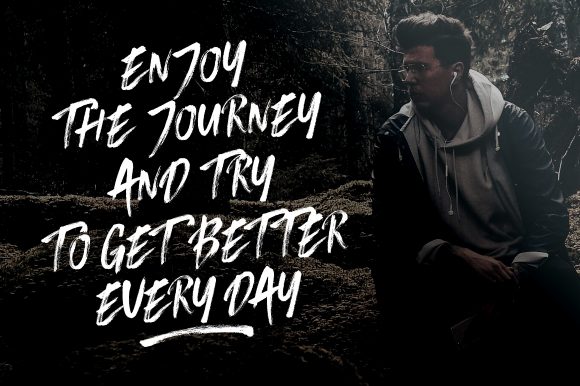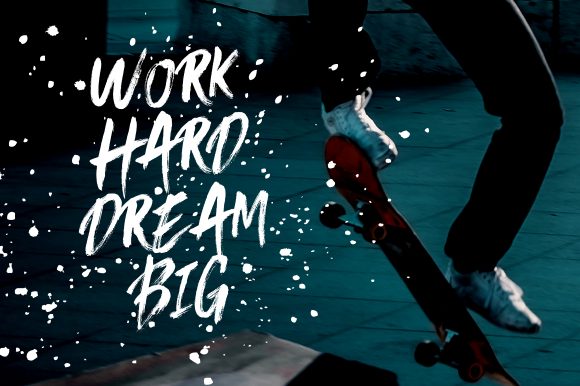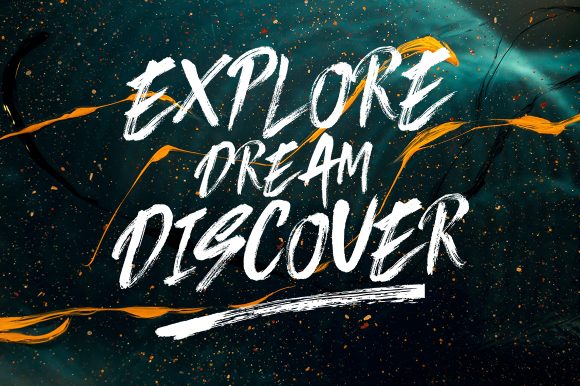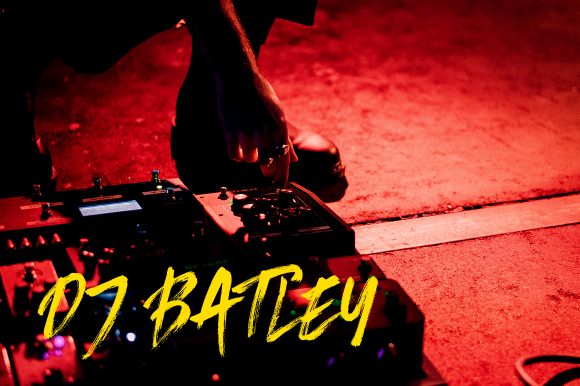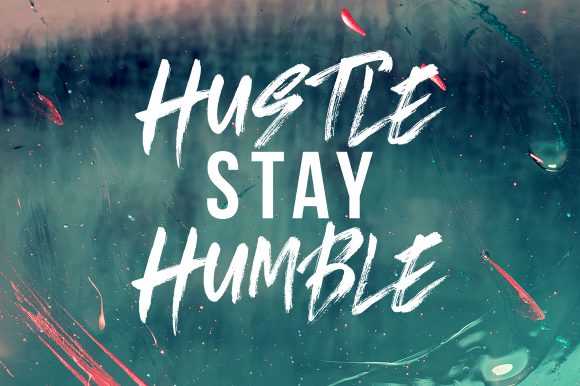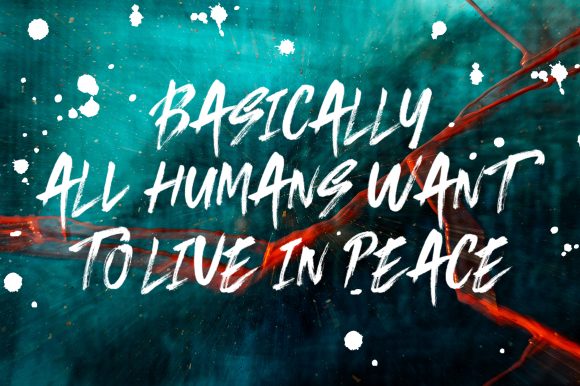
The Perfect Font to Elevate Your Creativity
Do you remember that moment when a font just clicks, and your design comes to life? You’re staring at a blank canvas, and then suddenly, the right font appears, and your vision starts to take shape. For many designers, this is a moment of pure joy.
Enter the Bambe Font, a bouncy and quirky display font that’s sure to add a fresh and contemporary touch to your designs. With its unique personality, Bambe Font is the perfect companion for any creative project. Whether you’re a graphic designer, a digital artist, or a marketer, this font will help you stand out from the crowd and make your work truly unforgettable.
The value of the Bambe Font lies in its versatility and ability to elevate any design. By incorporating this font into your creative ideas, you’ll be able to add a touch of playfulness, whimsy, and sophistication, making your work truly special.
Bambe Font Key Features
- Font Family: Bambe Font is a unique, handwritten font that comes in several styles, including Regular, Bold, and Italic.
- Character Set: The Bambe Font includes a wide range of characters, including uppercase and lowercase letters, numbers, and punctuation marks.
- Unique Characteristics: The Bambe Font features a distinctive, cursive style with irregular letterforms and connections, giving it a personal and creative touch.
Bambe Font Review
I recently had the chance to work with the Bambe Font, and I must say, it’s a unique and interesting addition to any design project. ✨ One thing that immediately caught my attention is its playful and whimsical feel, which is perfect for creating a fun and lighthearted atmosphere.
Here are some of the things that I like about the Bambe Font:
- ✨ Its cursive script makes it perfect for hand-written or signature-style designs.
- ✨ The font is highly customizable, with a wide range of options for color, size, and style.
- ✨ It’s highly legible, even at small sizes, making it perfect for use in digital designs.
However, there are some limitations to the Bambe Font that are worth noting:
- ⚠️ It may not be the best choice for formal or professional designs, as its playful feel may come across as unprofessional.
- ⚠️ The font can be a bit difficult to read at very small sizes, so it’s best to use it in conjunction with larger text.
Overall, I think the Bambe Font is a great addition to any designer’s toolkit. While it may not be the best choice for every project, it’s perfect for creating a fun and lighthearted atmosphere, and its high level of customization makes it a great choice for designers who want to add a personal touch to their designs.
The Bambe Font is ideal for use in creative projects such as:
– Wedding invitations
– Branding materials
– Digital art